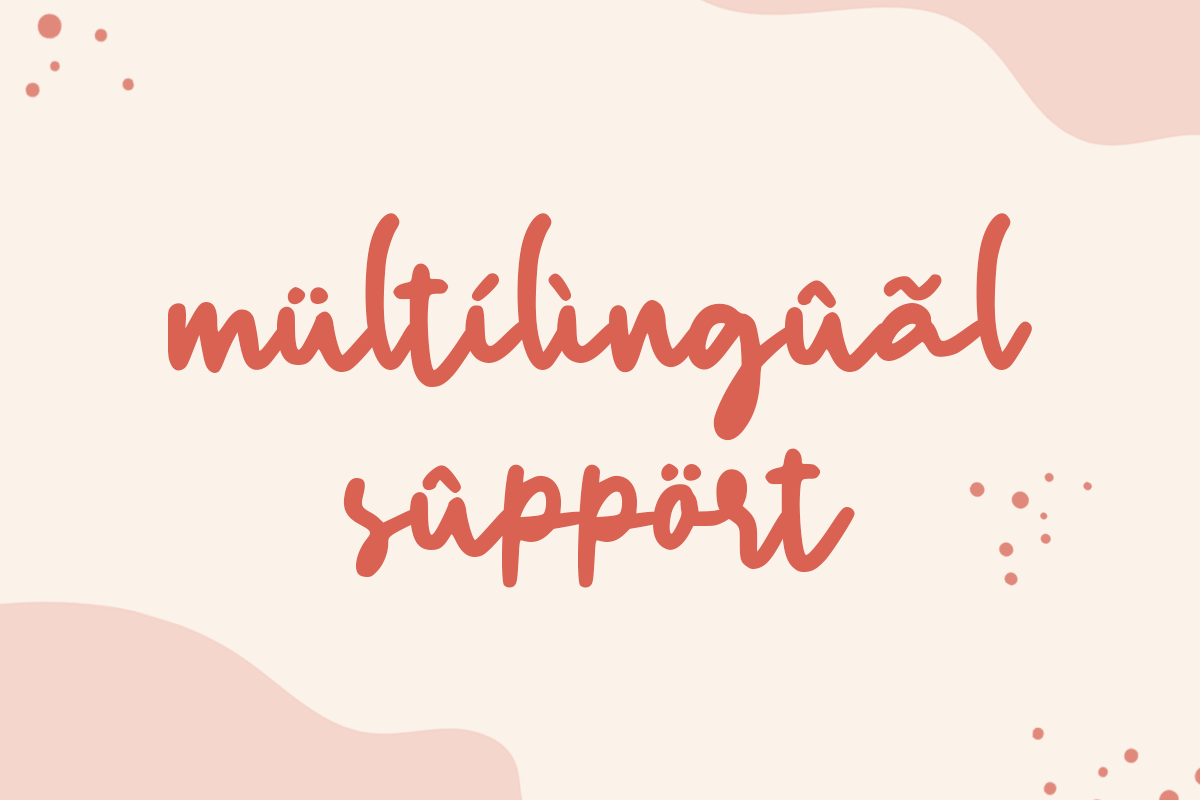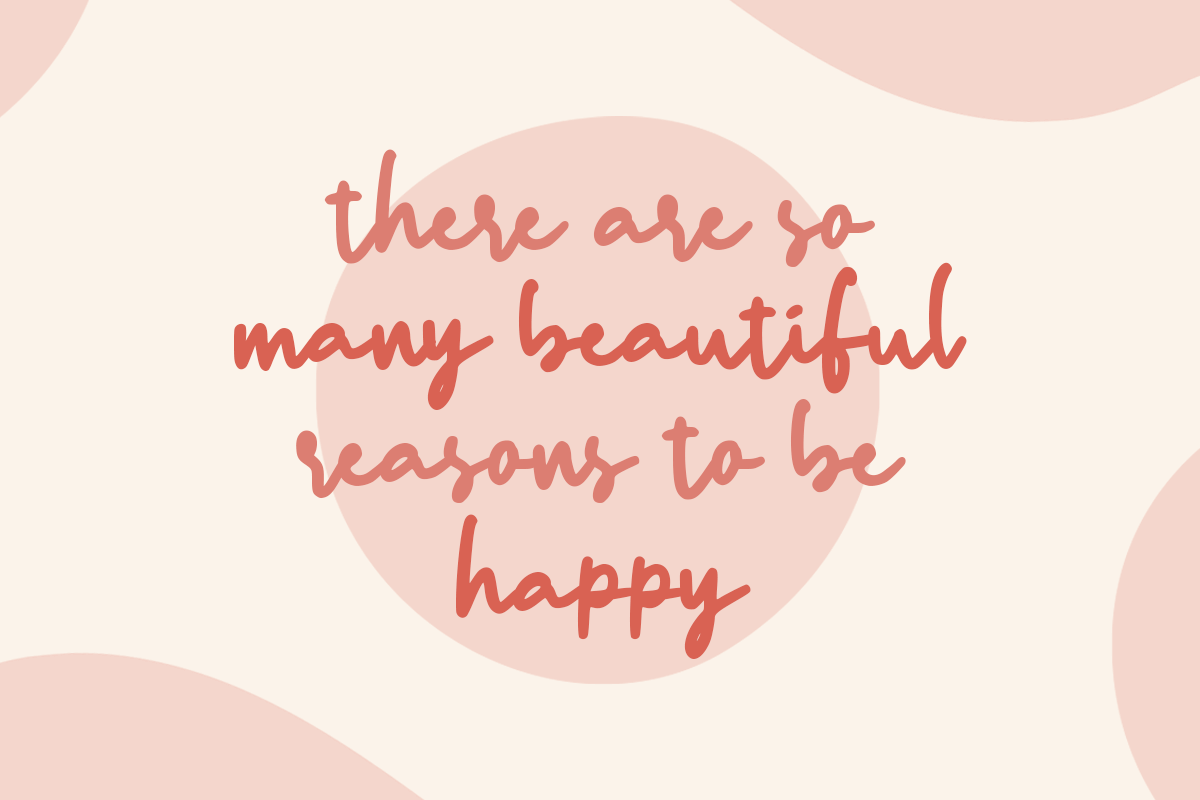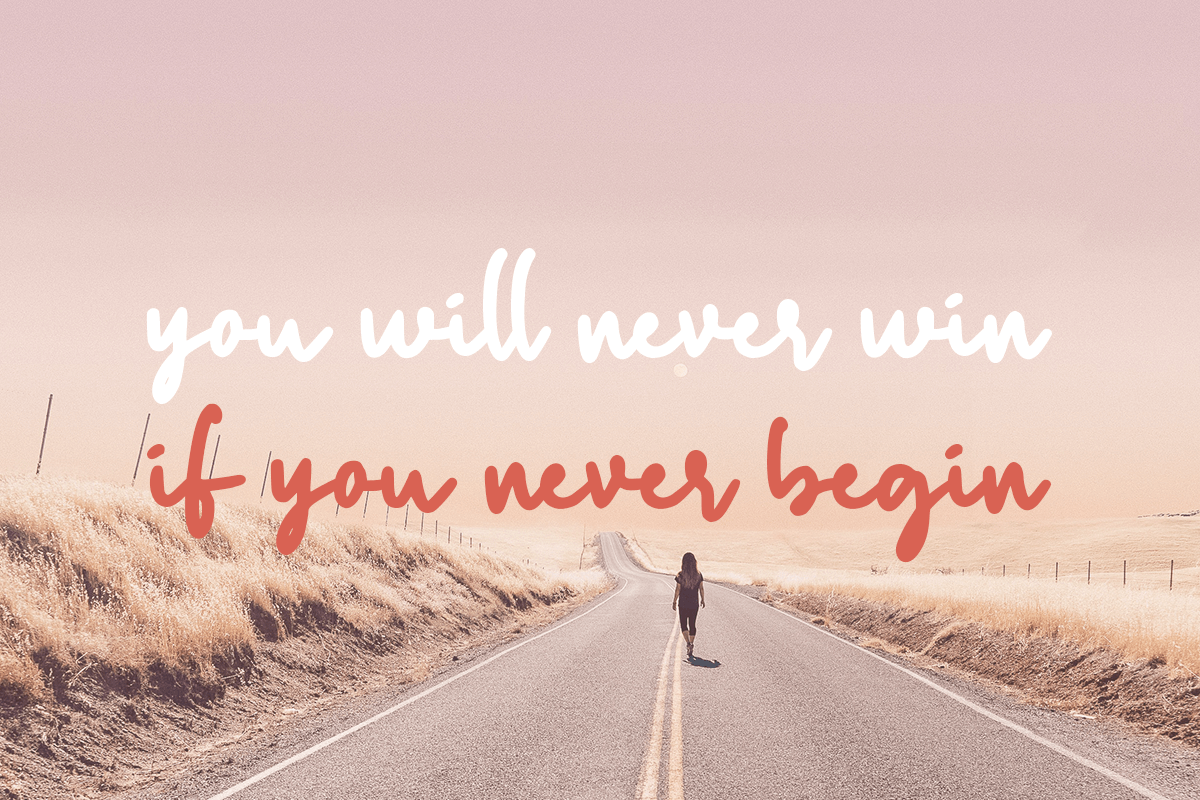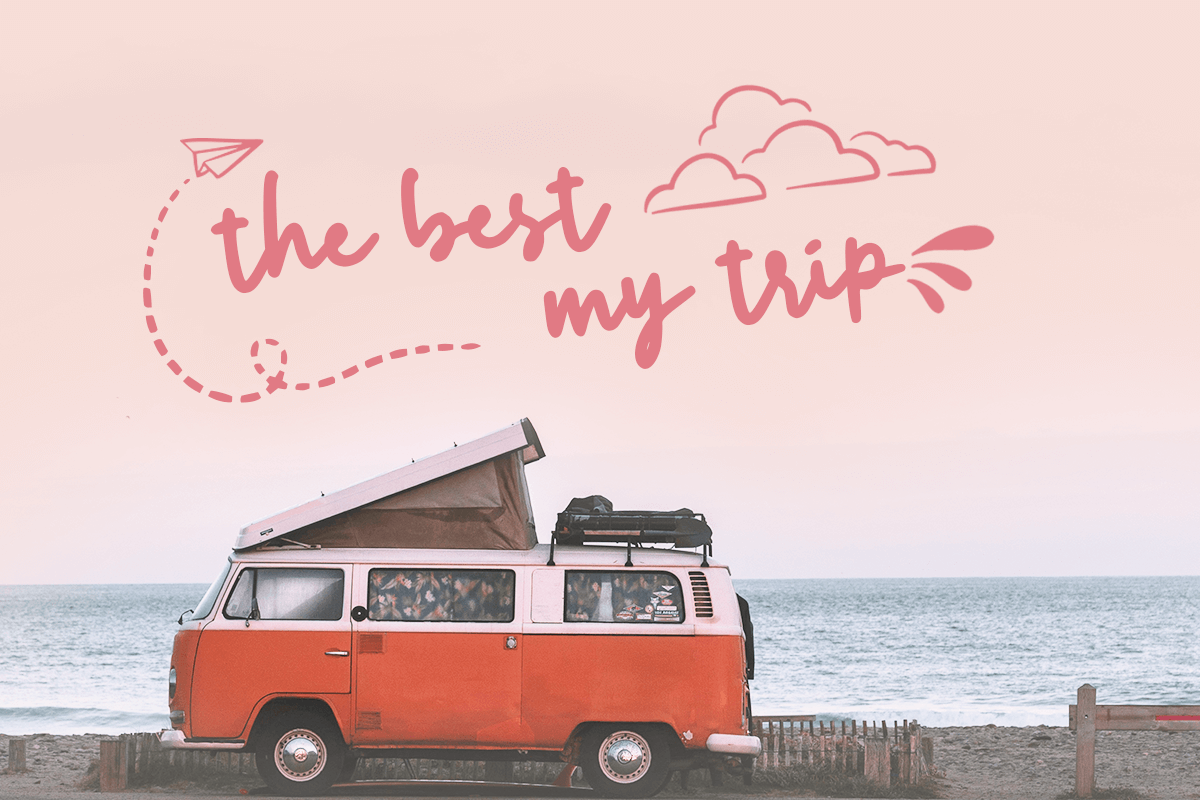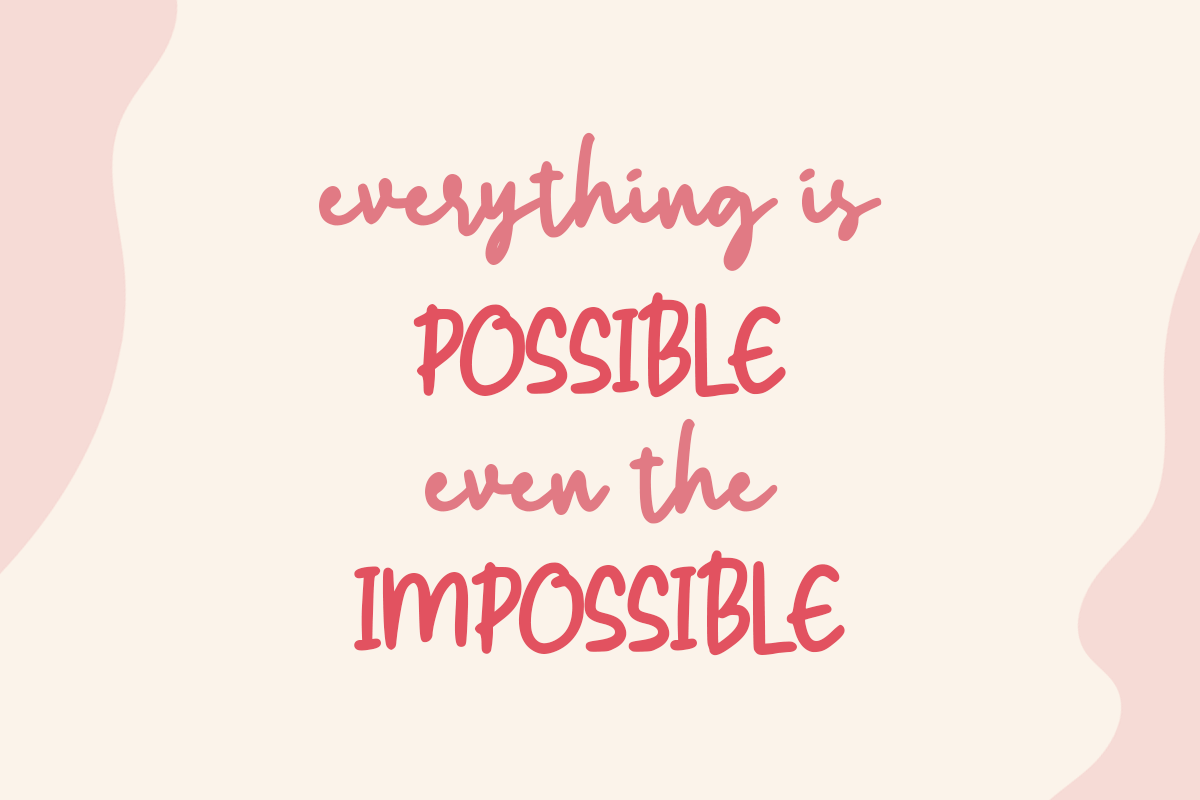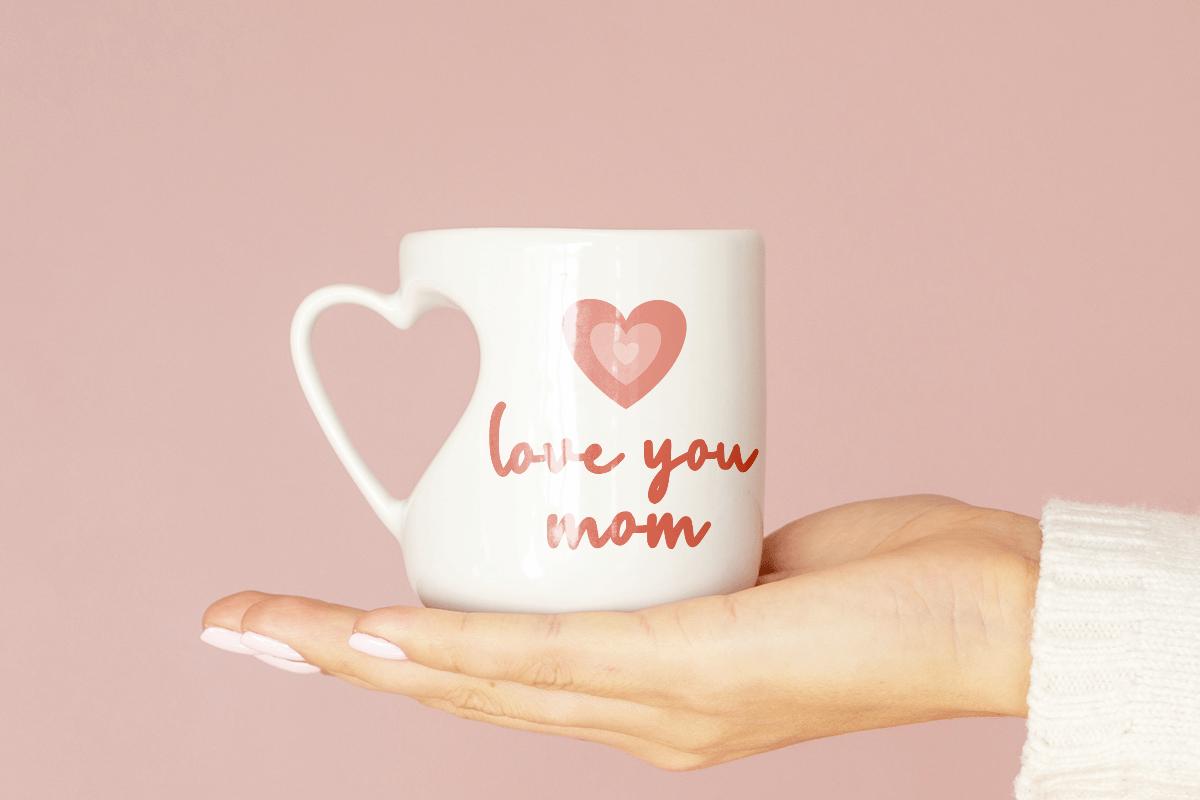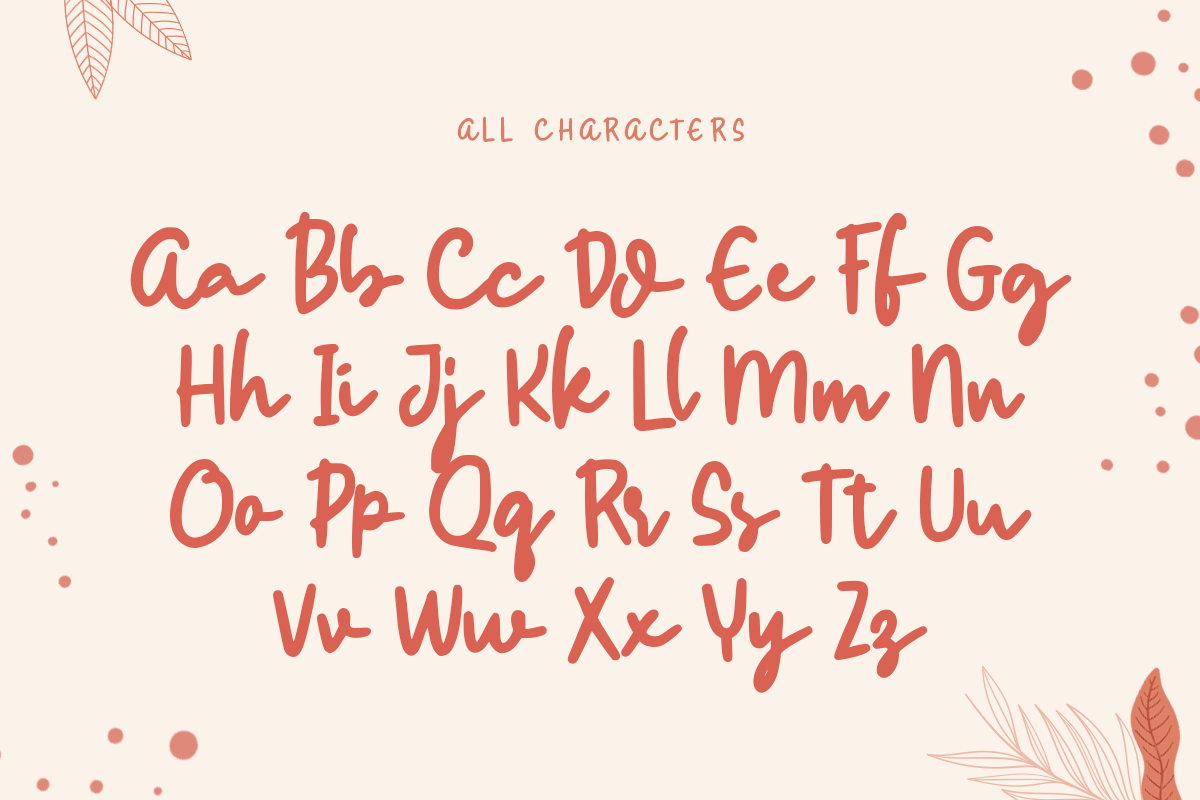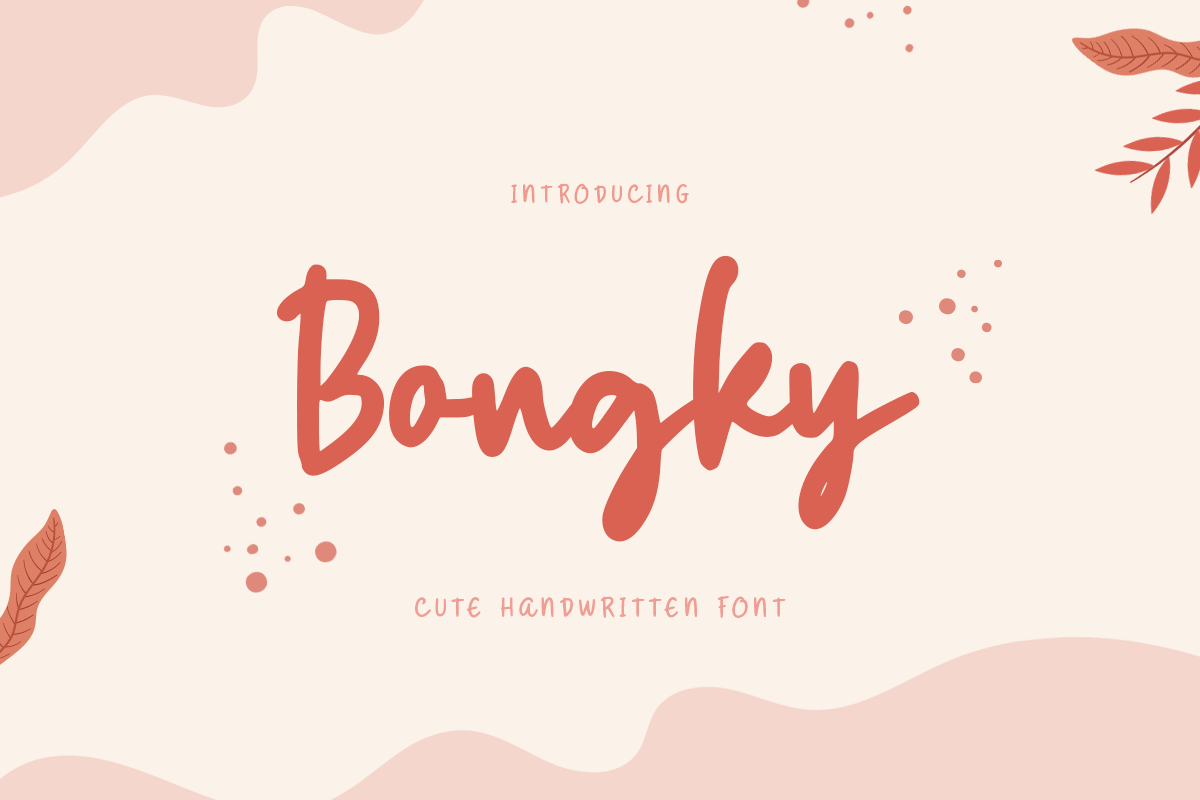
Bongky
-Cute Handwritten Font
Bongky
Bongky - Cute Handwritten Font . Inspired from beauty and feminine style very good for signature, stationery, logo, typography quotes, magazine or book cover, website needs.